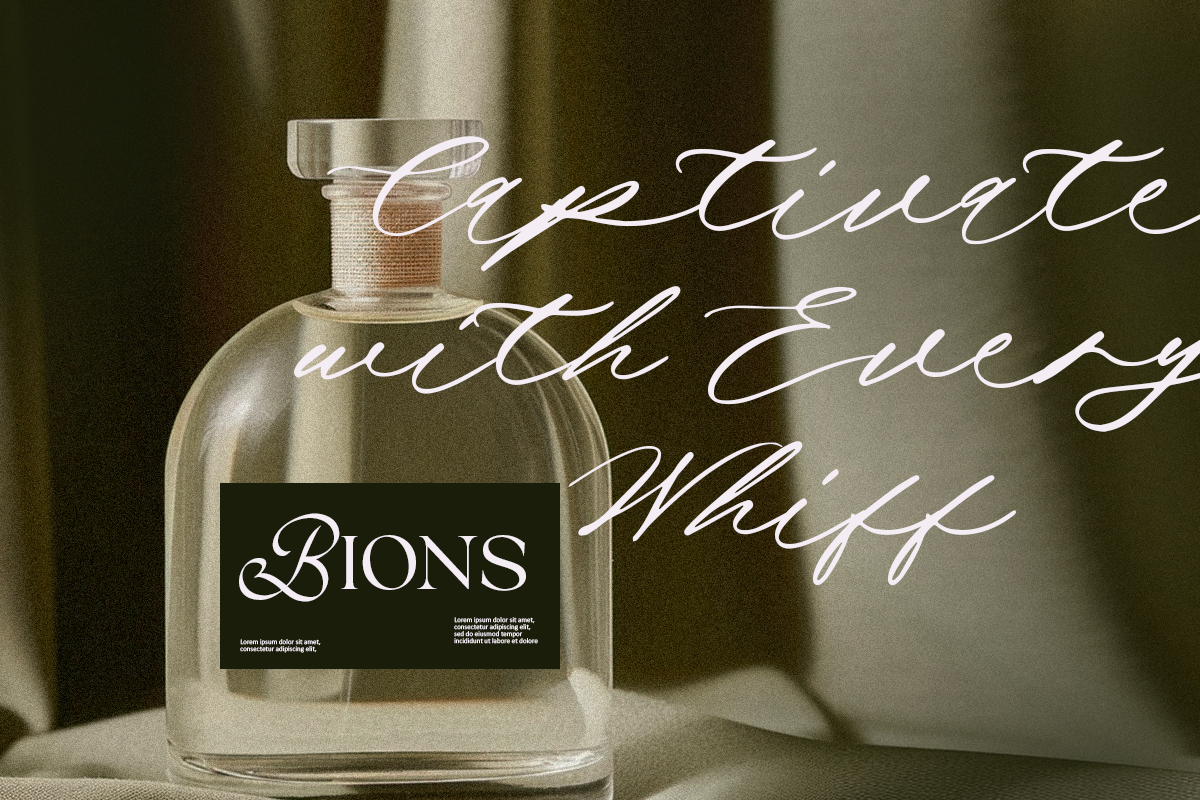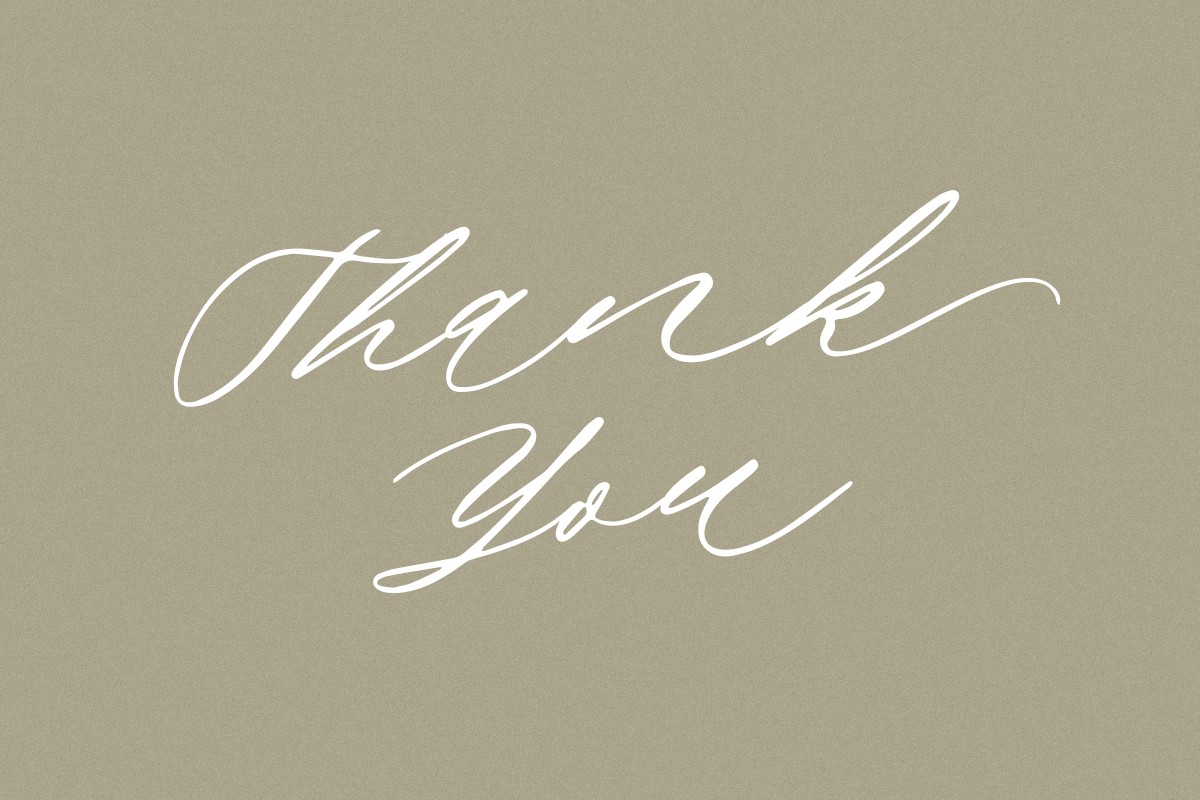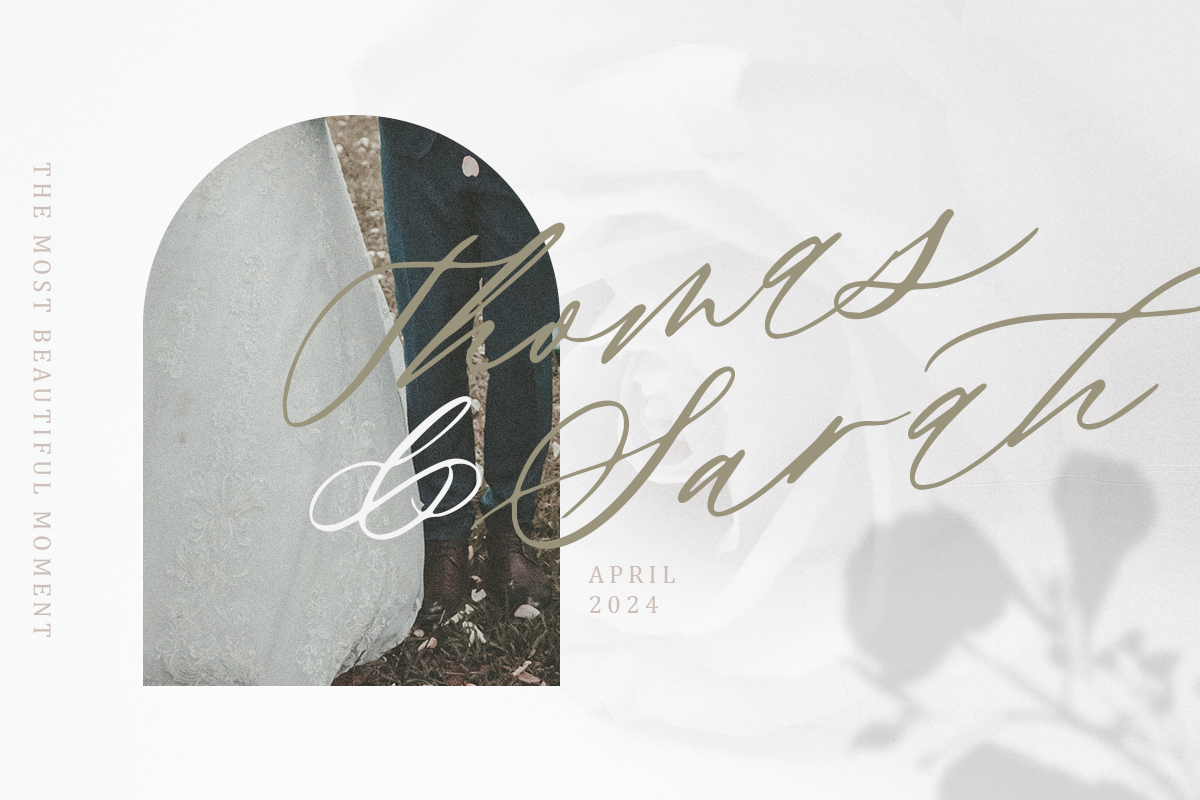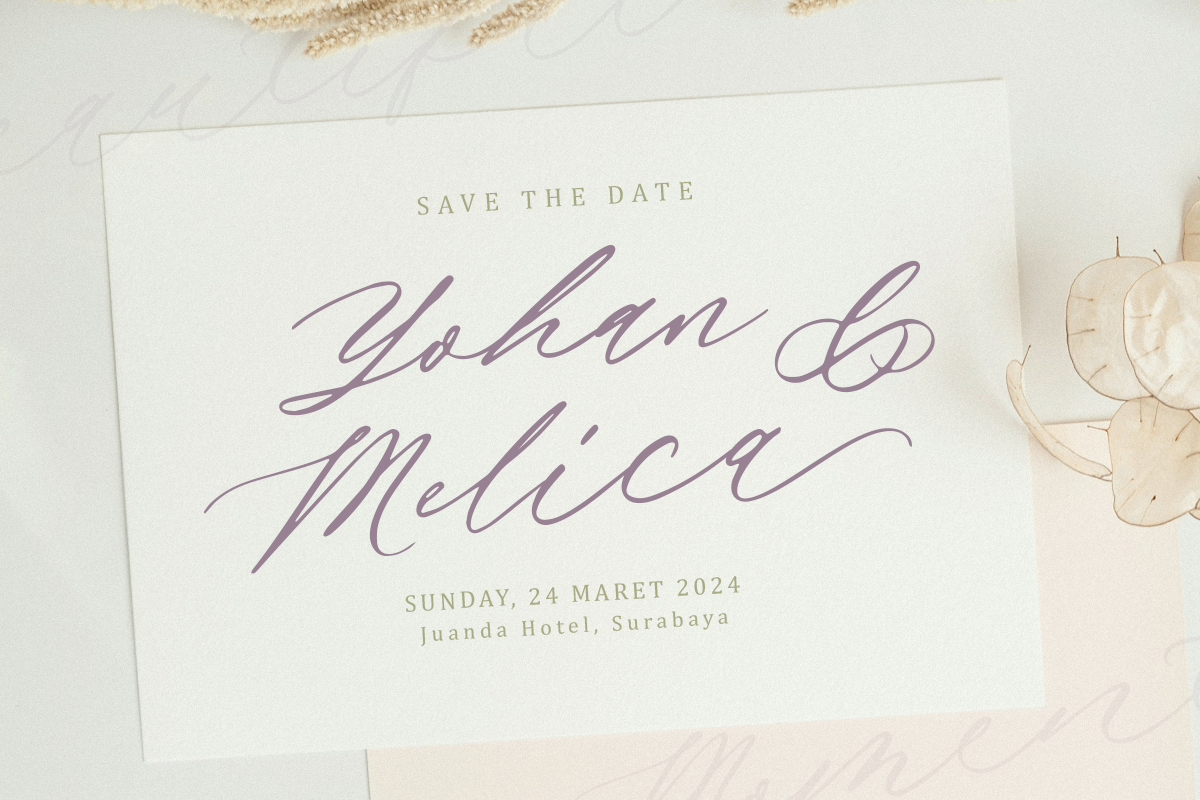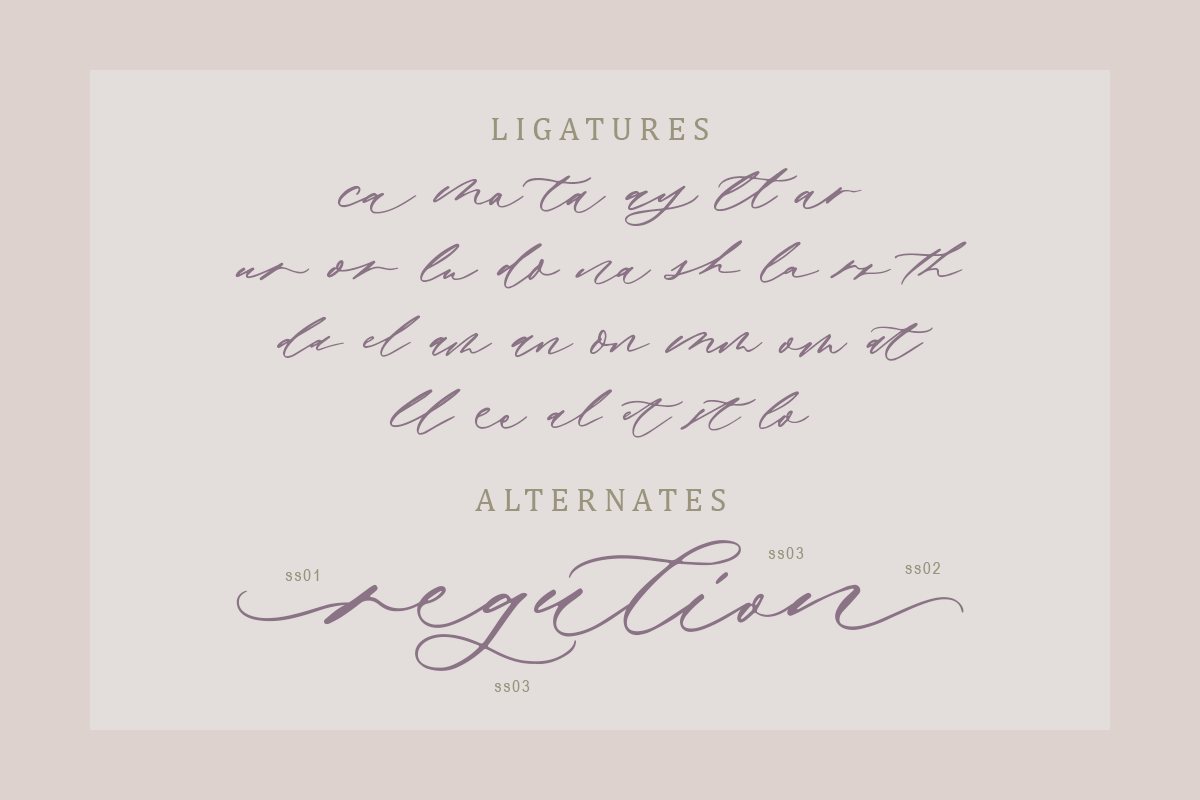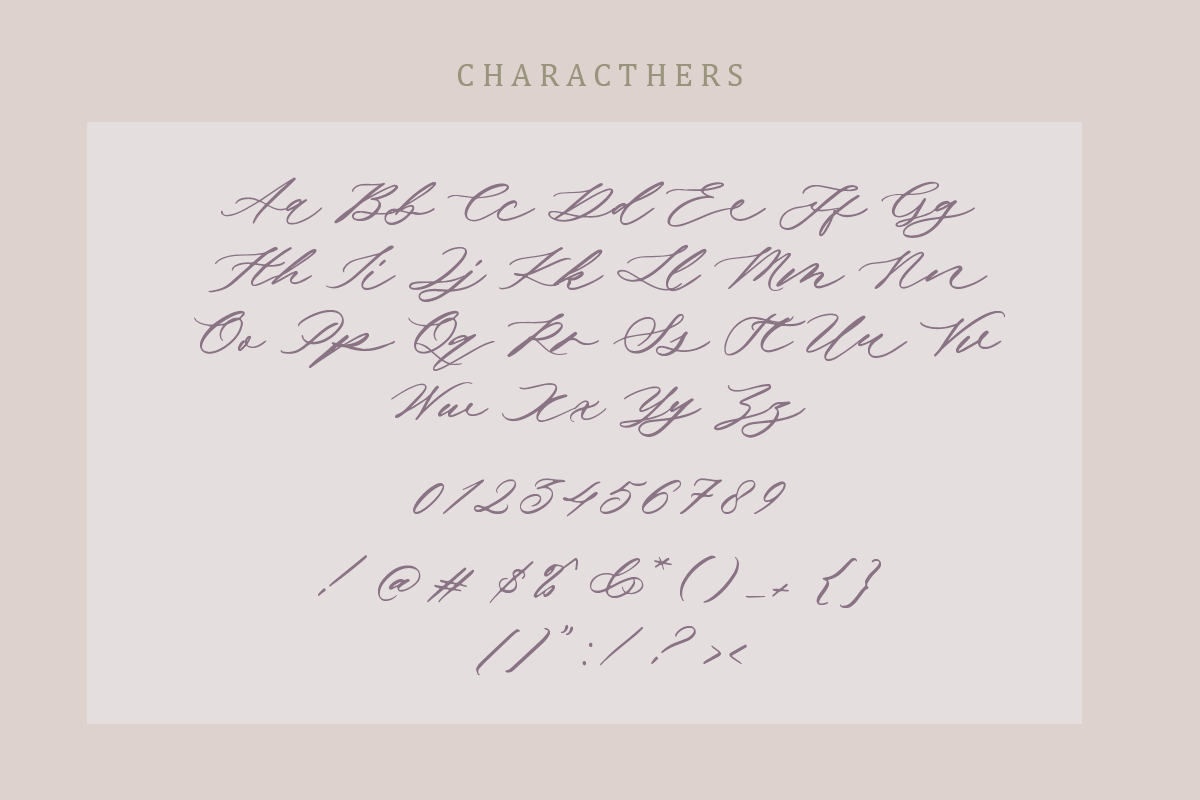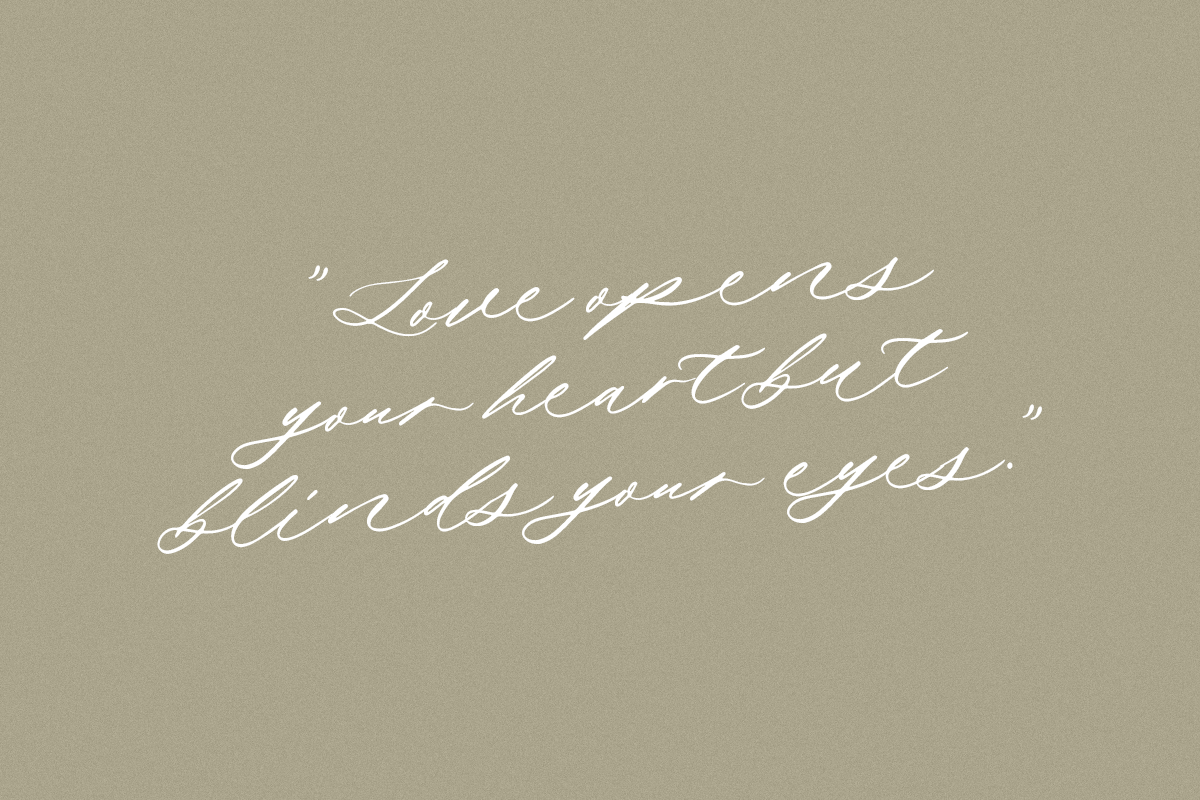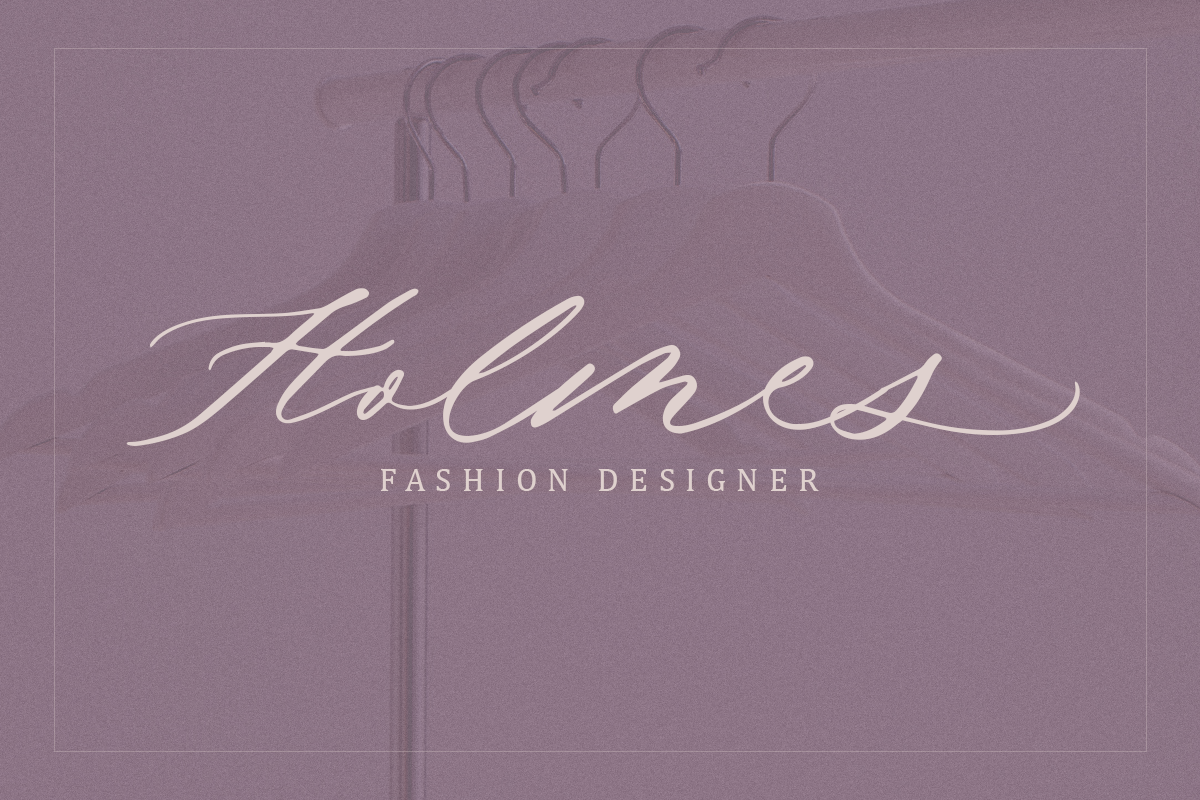
Quartel Balgon
Quartel Balgon A unique and beautiful looking font made with a modern feel. This font was created with elegance in mind so it is very suitable for wedding needs, fashion and things with a feminine nuance.
This font has alternatives that can be used to add variations to make it look more attractive.